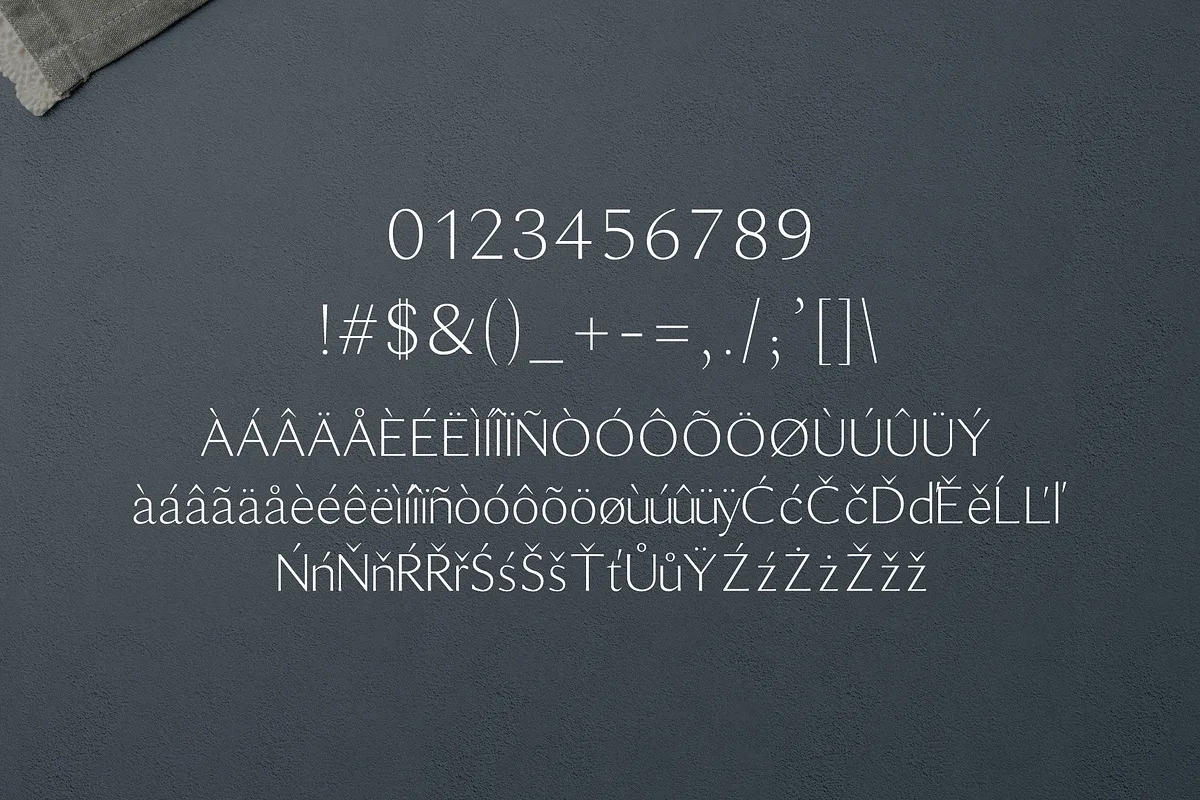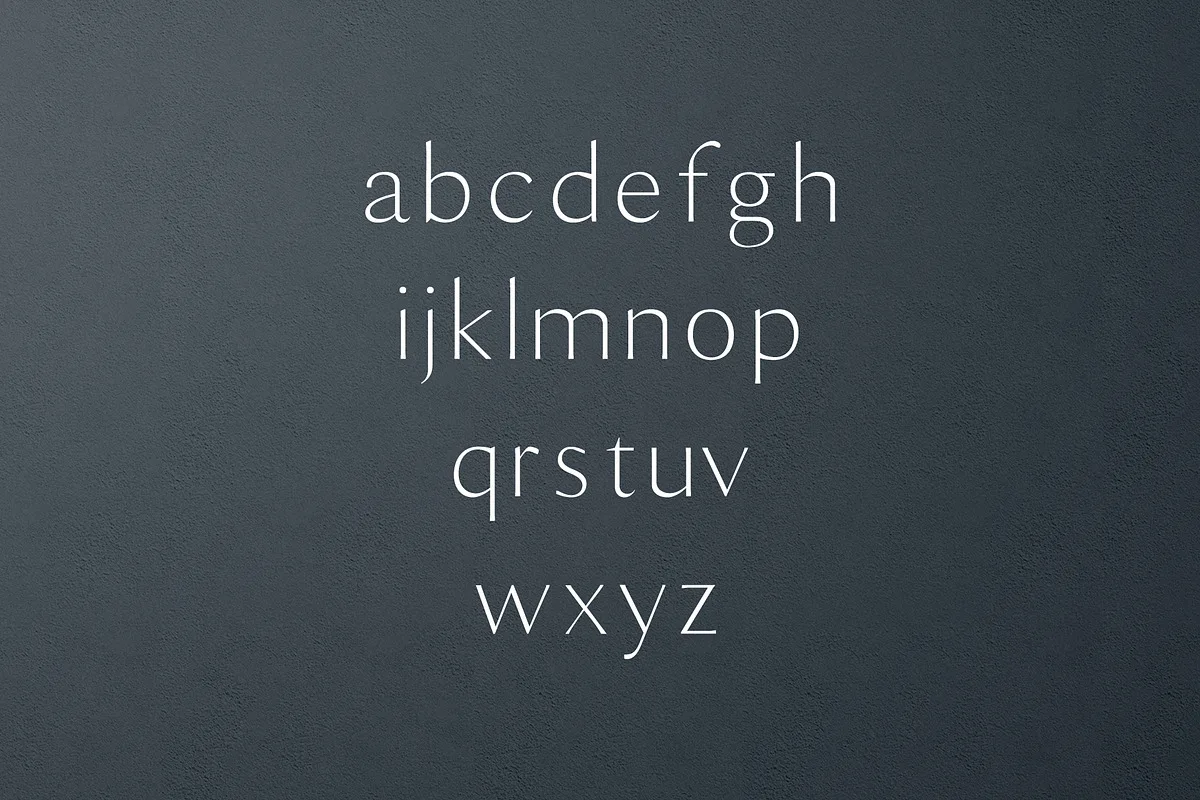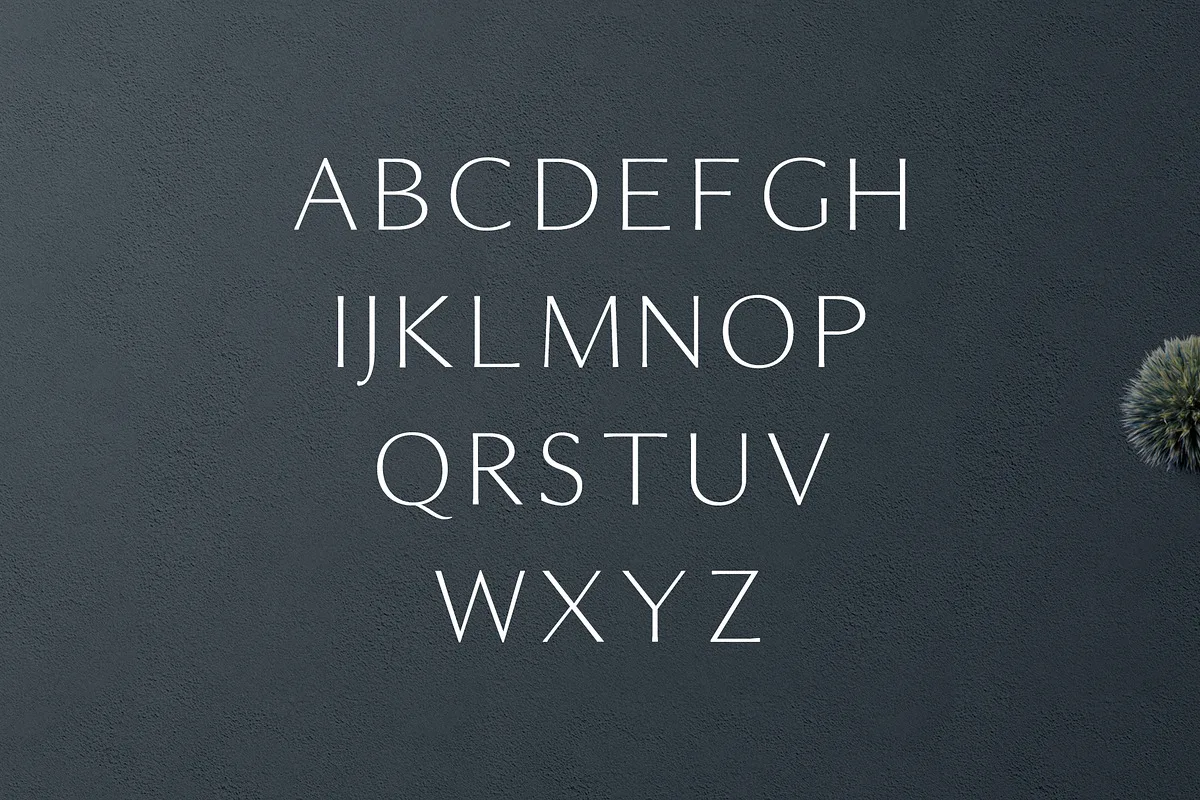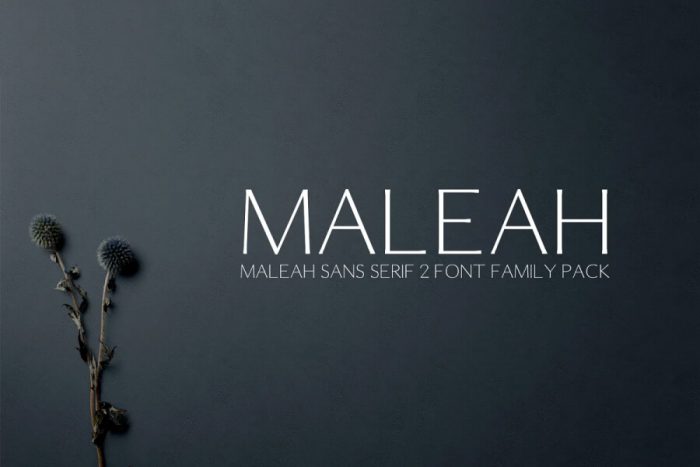
Maleah Sans Serif 4 Fonts Family Pack is a modern and stylish serif font collection, perfect for creating eye-catching logos, titles, website designs, and branding materials. It looks stunning when used in all caps with a bit of extra spacing for a sophisticated vibe, or just as lovely in a mix of uppercase and lowercase for a classic touch.
- Uppercase Multilingual Letters
- Lowercase Multilingual Letters
- Numbers & Punctuation
- Non-English Characters ( Latin Extended-A )